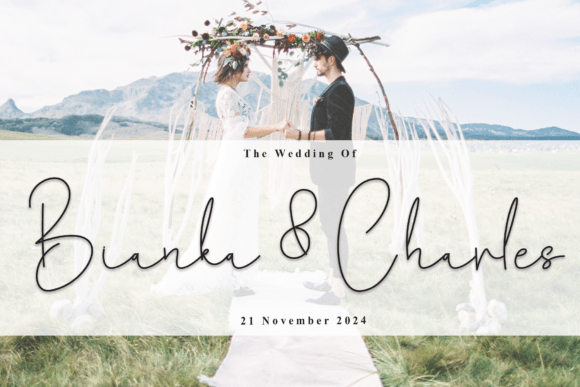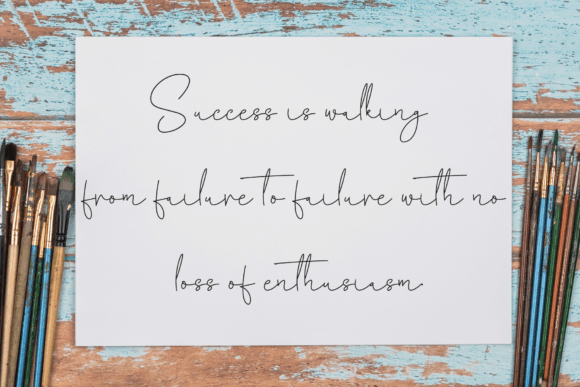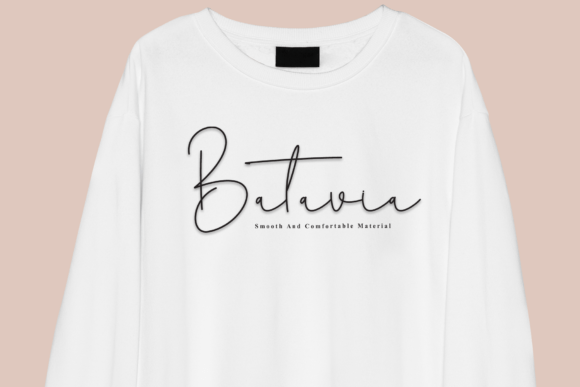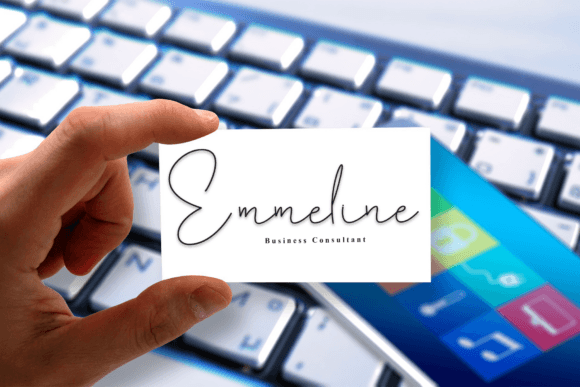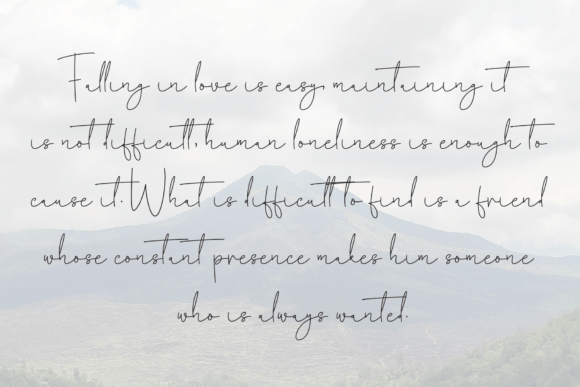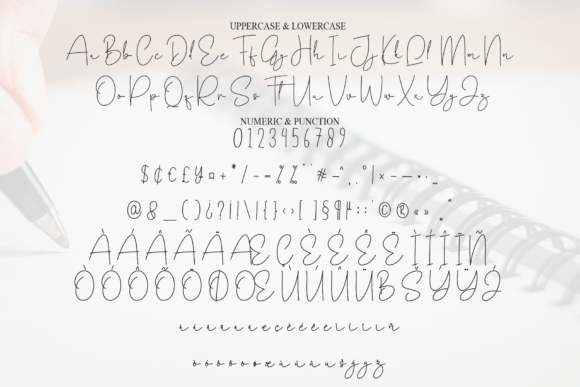
Introducing Autography Font: Elevate Your Designs with Elegance and Playfulness
Are you a designer or crafter looking for a font that embodies both sophistication and whimsy? Look no further than Autography, a stunning handwritten script font that is sure to elevate your designs. With its flowing, smooth lines, Autography exudes a personal and artistic touch, making it perfect for creating beautiful designs like cards, logos, or invitations.
The Characteristics of Autography Font
Autography is a lovely handwritten script font that feels elegant and playful. Its key characteristics include:
- Flowing lines: Autography’s smooth, connected lines give it a fluid and natural feel, reminiscent of handwritten script.
- Elegant and playful: This font strikes the perfect balance between sophistication and playfulness, making it suitable for a wide range of design applications.
- Personal touch: Autography’s unique, hand-crafted feel adds a personal touch to any design, making it perfect for creating bespoke cards, logos, or invitations.
- Artistic vibe: The font’s artistic and creative feel makes it ideal for designers and crafters looking to add a touch of personality to their work.
Uses for Autography Font
Autography is a versatile font that can be used in a variety of design applications, including:
- Cards: Create beautiful, one-of-a-kind cards for special occasions like weddings, birthdays, or holidays.
- Logos: Use Autography to create a unique and memorable logo for your business or brand.
- Invitations: Design elegant and playful invitations for parties, events, or other special occasions.
- Stationery: Add a touch of personality to your stationery with Autography, making it perfect for letter writing or creating bespoke notebooks.
Tips for Using Autography Font
To get the most out of Autography, here are a few tips to keep in mind:
- Experiment with sizes: Autography looks great in a variety of sizes, from large headings to smaller body text.
- Play with colors: The font’s elegant and playful feel lends itself well to a range of colors, from classic black and white to bold and bright hues.
- Mix and match: Combine Autography with other fonts to create a unique and visually interesting design.
- Keep it simple: Don’t be afraid to keep things simple and let Autography be the star of the show.
Why Choose Autography Font?
With so many fonts to choose from, why should you choose Autography? Here are just a few reasons:
- Unique and distinctive: Autography’s hand-crafted feel makes it stand out from more generic fonts.
- Elegant and playful: The font’s balance of sophistication and whimsy makes it suitable for a wide range of design applications.
- High-quality: Autography is a high-quality font that is designed to deliver crisp, clear results.
In conclusion, Autography is a beautiful and versatile font that is perfect for designers and crafters looking to add a touch of elegance and playfulness to their work. With its flowing lines, personal touch, and artistic vibe, Autography is sure to become a go-to font in your design arsenal.